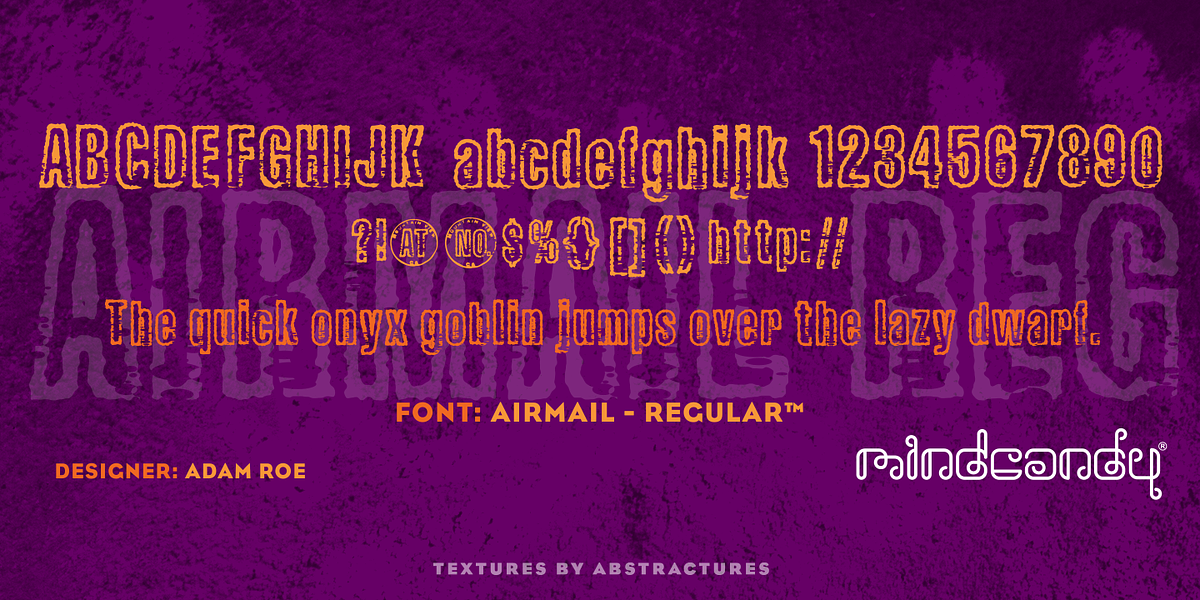
AirMail™
AirMail™ Regular is a bold and condensed sans-serif font with a distinct grunge aesthetic. Its outlined design gives it a distressed look, suitable for attention-grabbing headlines and branding materials. This font is part of a two-font family that also includes Airmail Postage™, a set of graphic symbols inspired by traditional postal elements.